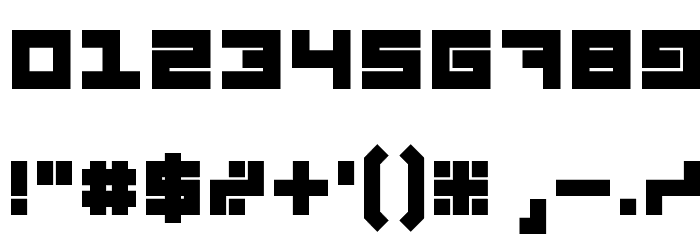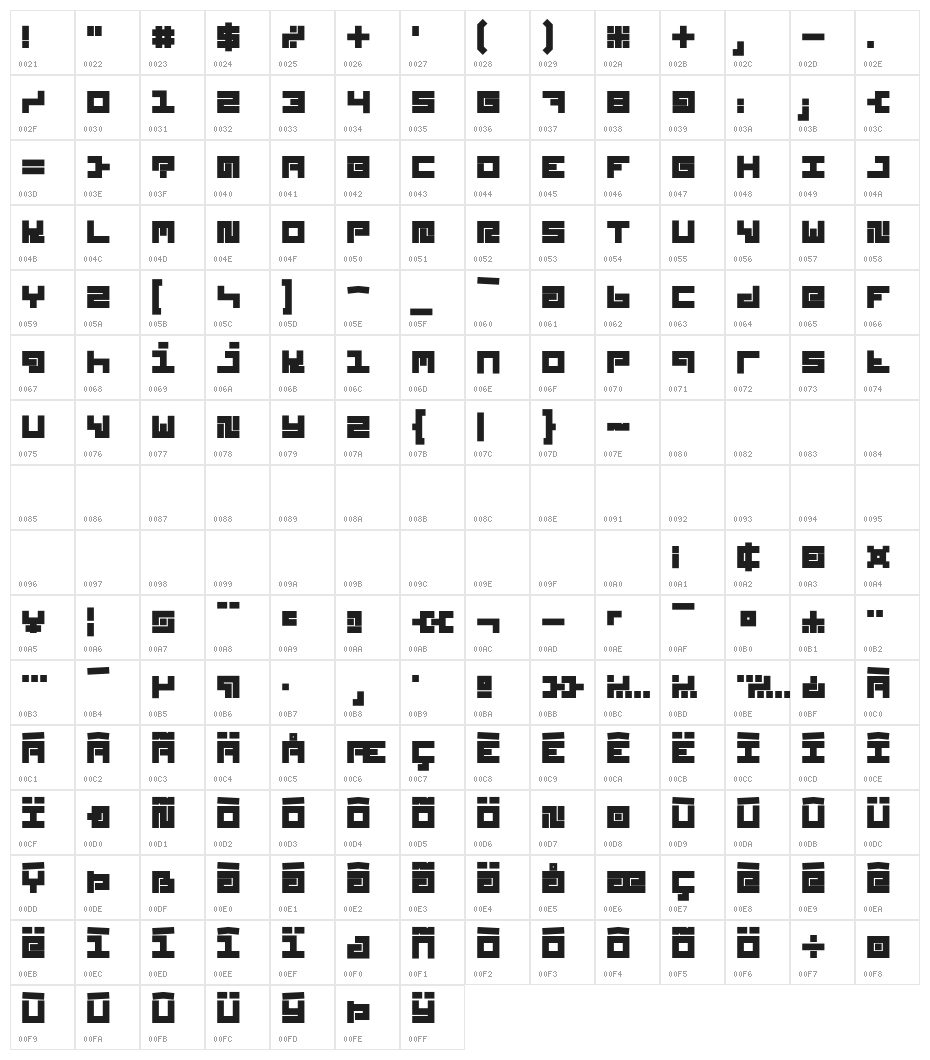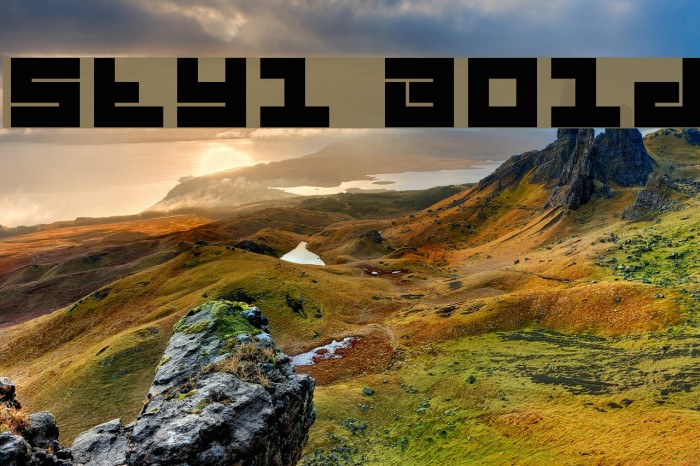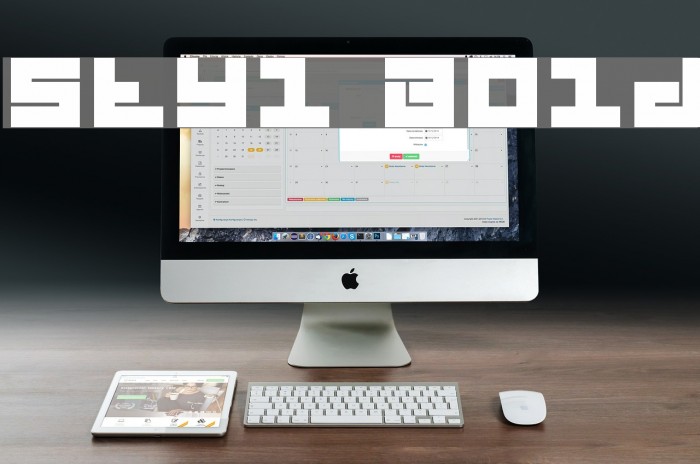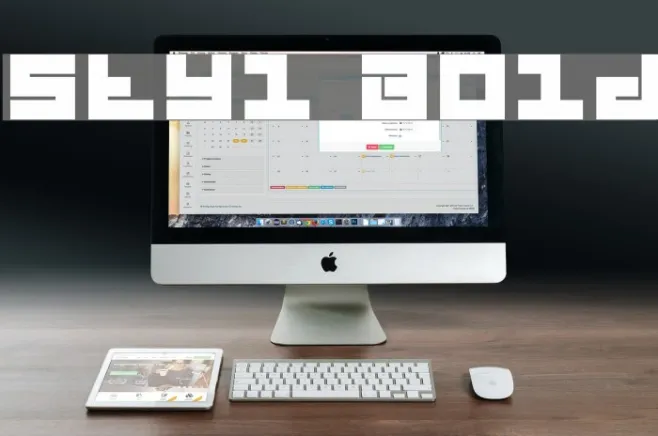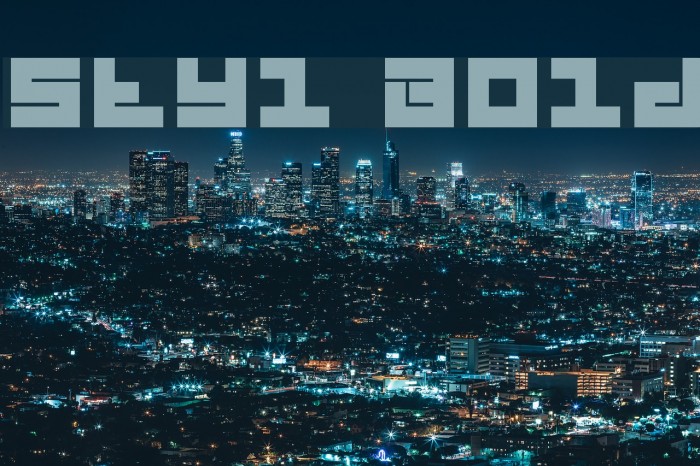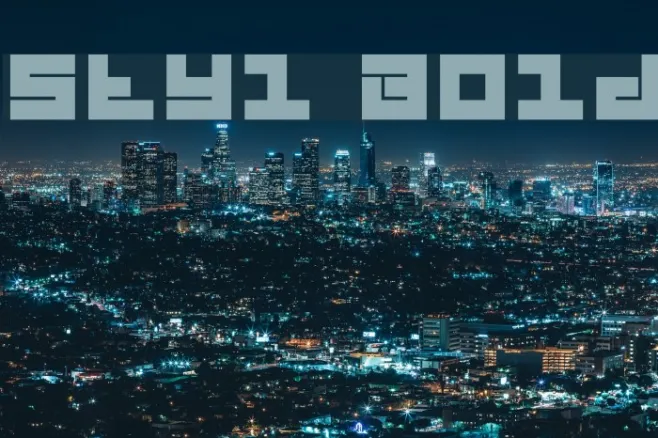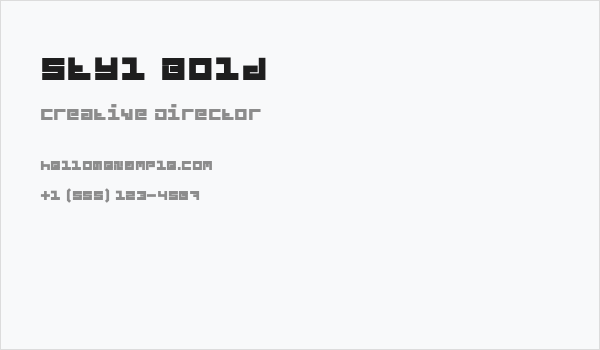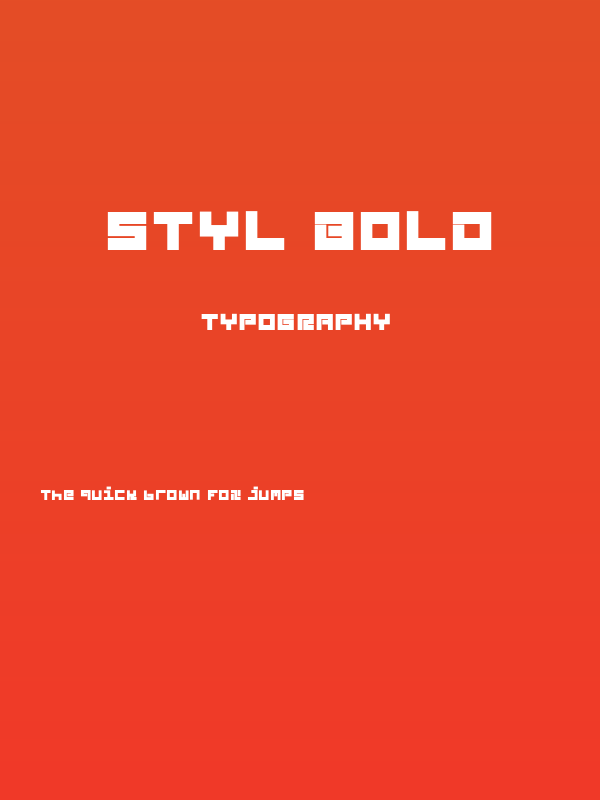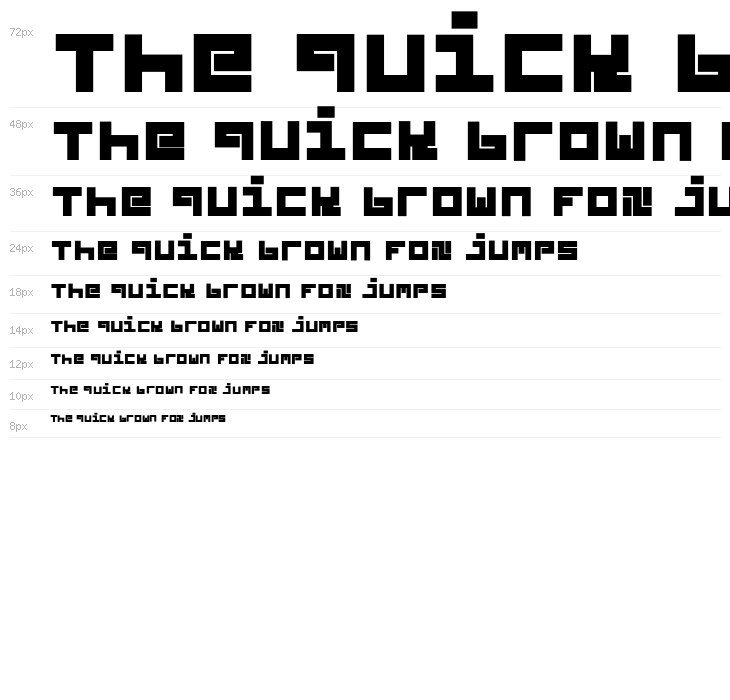
Styl Bold Font
Styl Bold Description
This font features a bold, geometric design with a futuristic and digital aesthetic. Each character is constructed with sharp angles and block-like forms, creating a sense of strength and modernity. The uppercase and lowercase letters maintain a consistent height, contributing to a uniform appearance. The numerals and special characters follow the same design principles, ensuring a cohesive look across all glyphs. The font's style is reminiscent of digital displays and is well-suited for projects that require a modern, tech-inspired feel.
| Proposed Projects | Ideal for technology branding, digital interfaces, video game design, and sci-fi themed projects. |